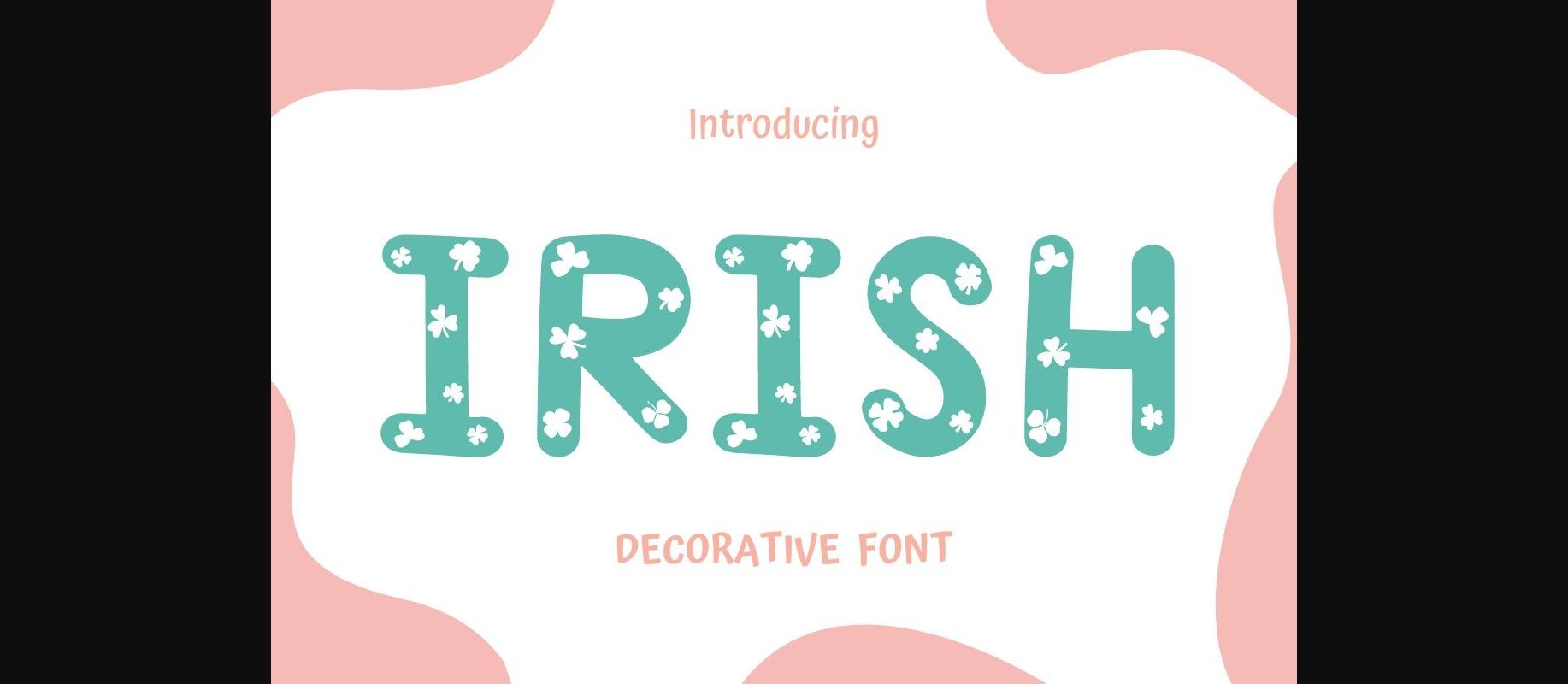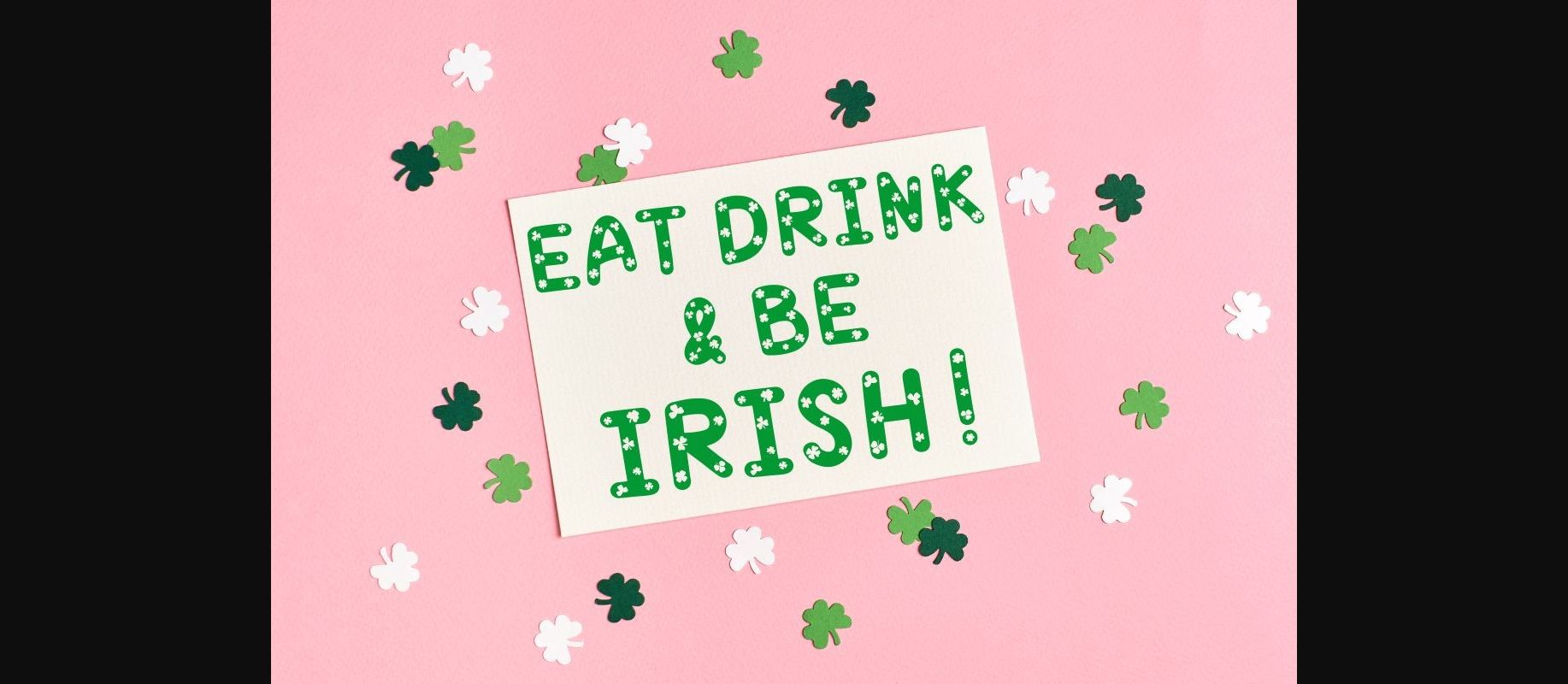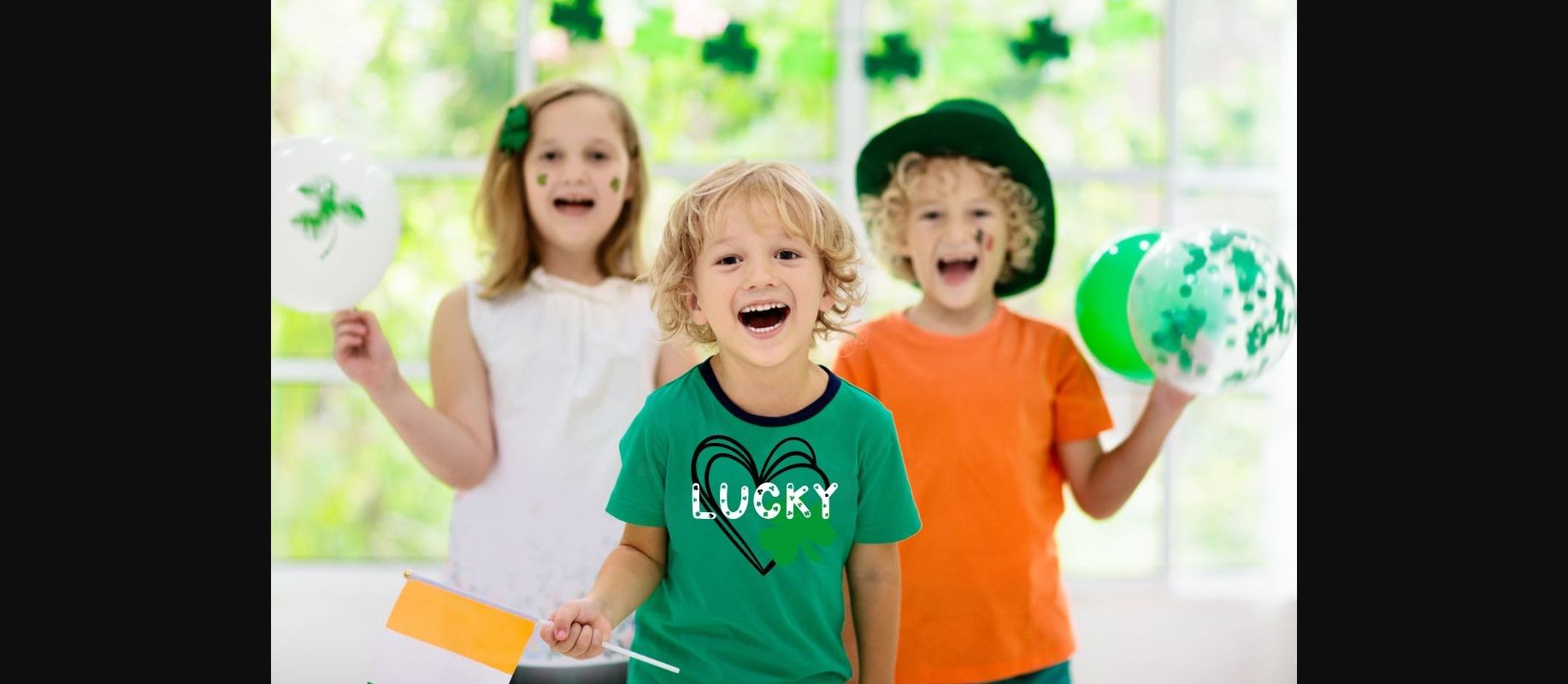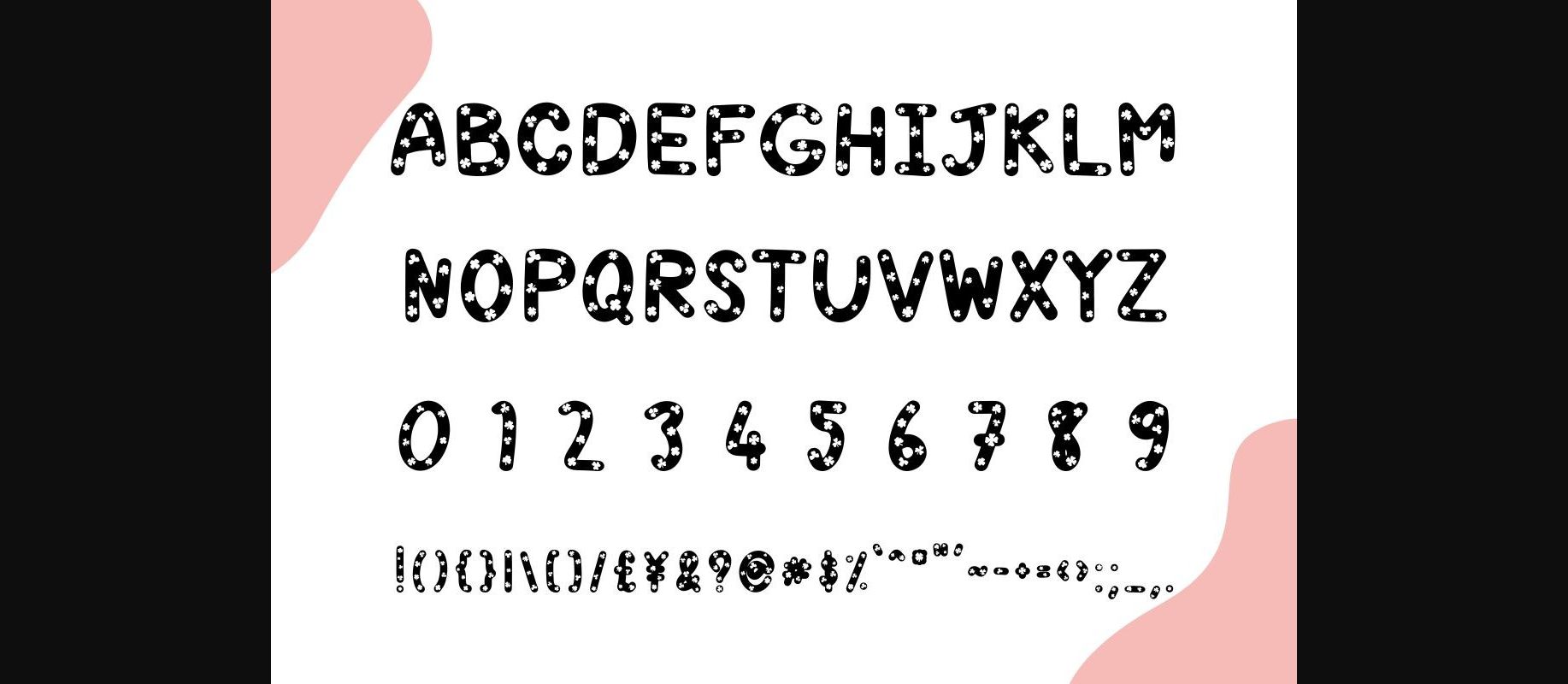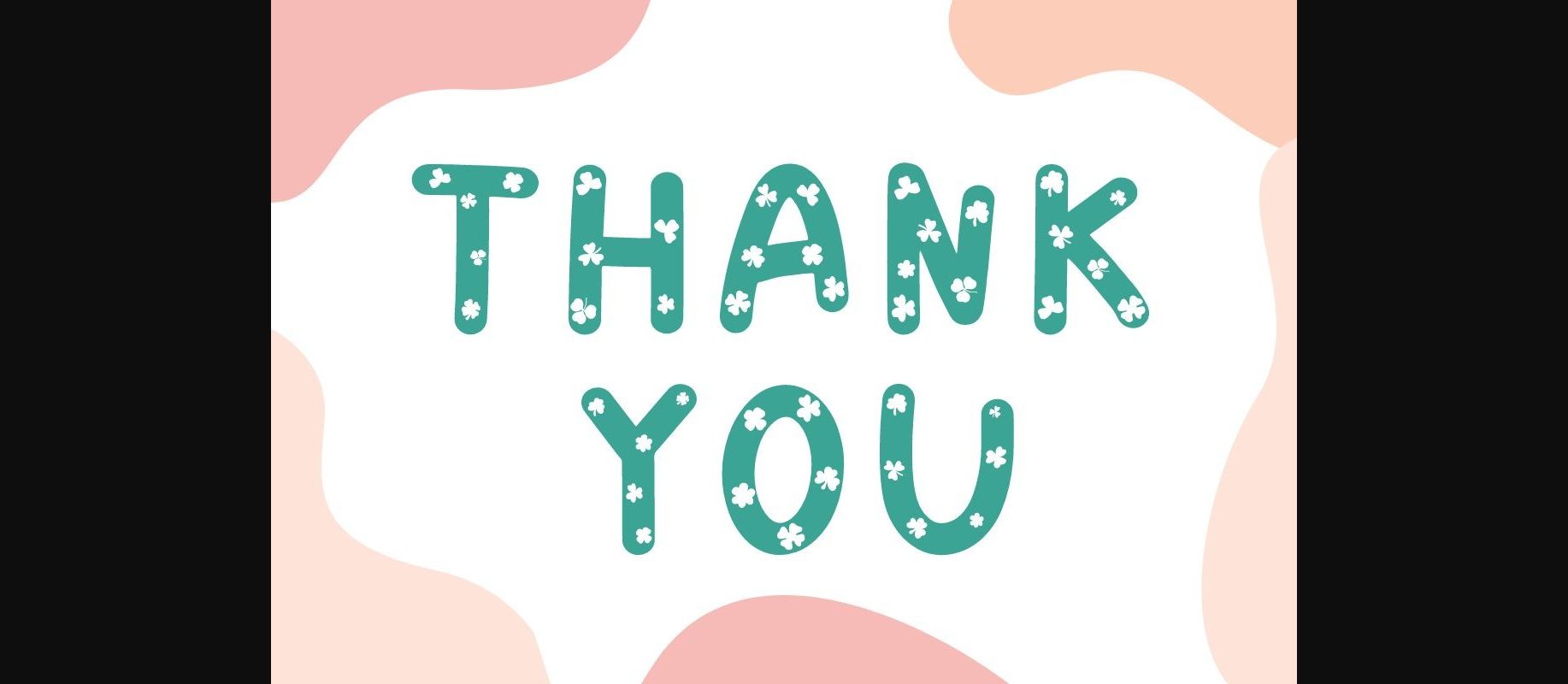
About Irish Font
Irish is an exquisite decorative font, carefully elaborated to become a true favorite. It has an outstanding writing technique that fits lots of design ideas. From greeting cards to headlines, stickers, and greeting cards, add it to any of your designs and enjoy the results!